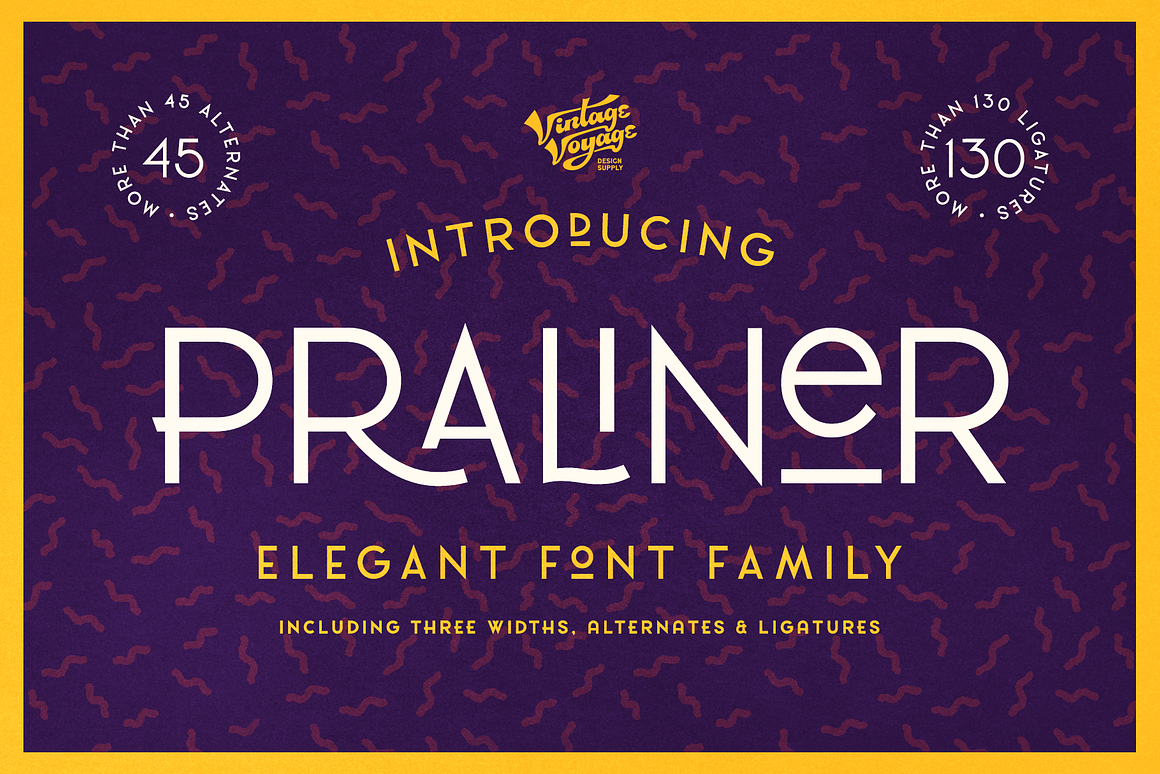
Praliner Font
Praliner Font is perfect for luxury chocolate branding, artisanal confectionery packaging, elegant patisserie signage, gourmet food labels, premium dessert menus, sophisticated bakery identities, upscale café branding, sweet treat marketing campaigns, and indulgent culinary experiences.
What makes Praliner Font exciting is its decadently smooth letterforms combined with luxurious sophistication that captures the essence of premium chocolate craftsmanship. The font's rich character details and refined elegance deliver irresistible visual appeal while maintaining exceptional readability, making it the ultimate choice for confectionery brands seeking to communicate artisanal quality, indulgent luxury, and gourmet excellence to discerning consumers.
Praliner Font family includes multiple weights from Light to Bold, along with elegant italic variations and decorative confectionery elements, providing comprehensive design solutions for creating cohesive luxury food branding and premium culinary marketing across upscale market segments.
The sumptuous letterforms and refined character spacing create instant recognition among luxury food enthusiasts while communicating quality craftsmanship and indulgent pleasure. Extensive stylistic options support elegant brand storytelling about artisanal processes.
Praliner Font stands out through its unique ability to evoke both luxury and desire simultaneously. This remarkable typeface doesn't just label products—it creates anticipation and craving, making it an invaluable asset for confectionery brands competing in markets where emotional connection and premium perception drive consumer choices and purchasing decisions.